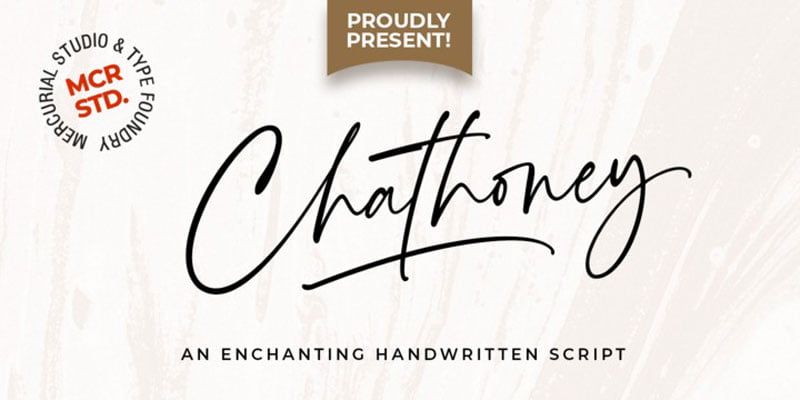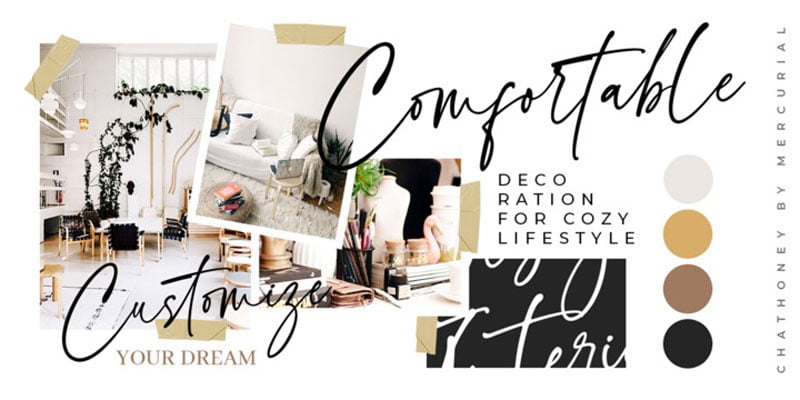
Chathoney Font
Say hello to Chathoney, an enchanting handwritten script typeface with exquisite accents, casual-chic, perfect for you who want a perfect and fabulous font!
Suitable for many design projects such as logo design, branding, packaging, blog graphics, stylizing quotes, wedding stationery, art prints, collateral design, packaging, social media, and so on. I’ve truly enjoyed the process of creating this font collection and hope that it will bring some magic into your projects!